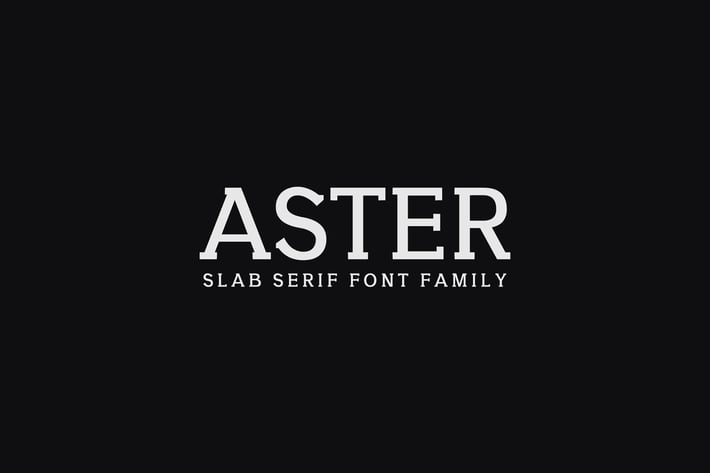
Aster Slab Serif Font Family
Aster Slab Serif Font is a set of 9 weights and it is good for making creative displays and it has slab serif font. It’s a lovely and unique slab serif font in our store, allowing you to make each word look completely stylish! It Suits best for modern / clean designs, logos, headlines, banners and templates etc. It looks gorgeous in all caps with a wide-set spacing if you want to try a classy look, or beautiful on its own in capital and lowercase letters for something completely timeless.
- Regular, Light, Thin, Black, Bold, Extra-Bold, Distorted, Light, Outline
Aster Font Features:
- Uppercase Multilingual Letters
- Lowercase Multilingual Letters
- Non English Characters ( Latin Supplement + Latin Extended A)